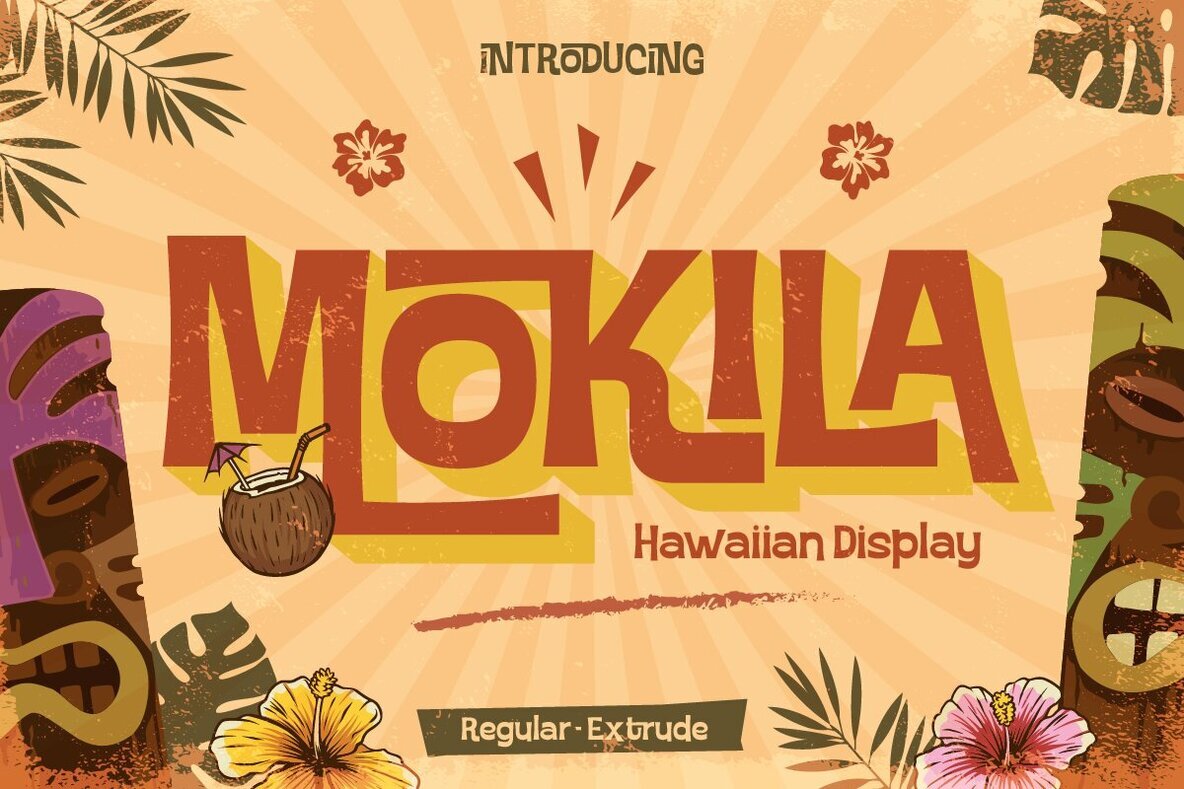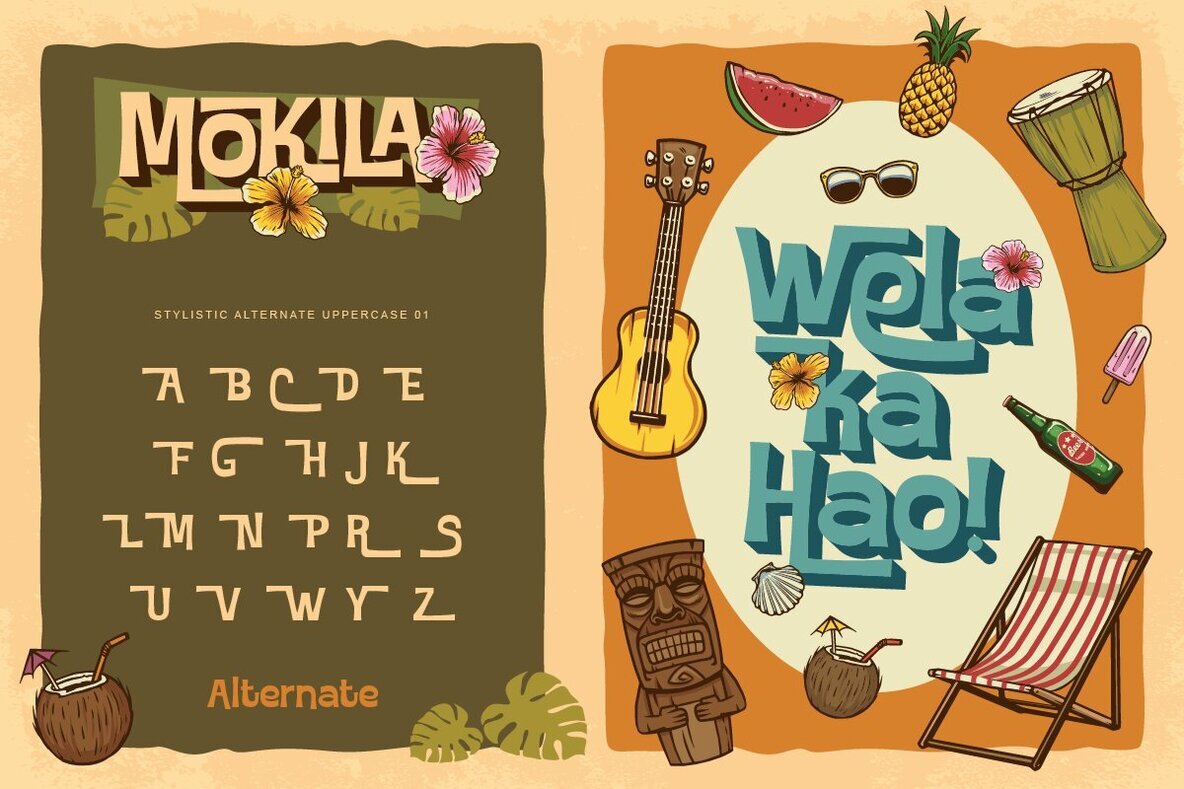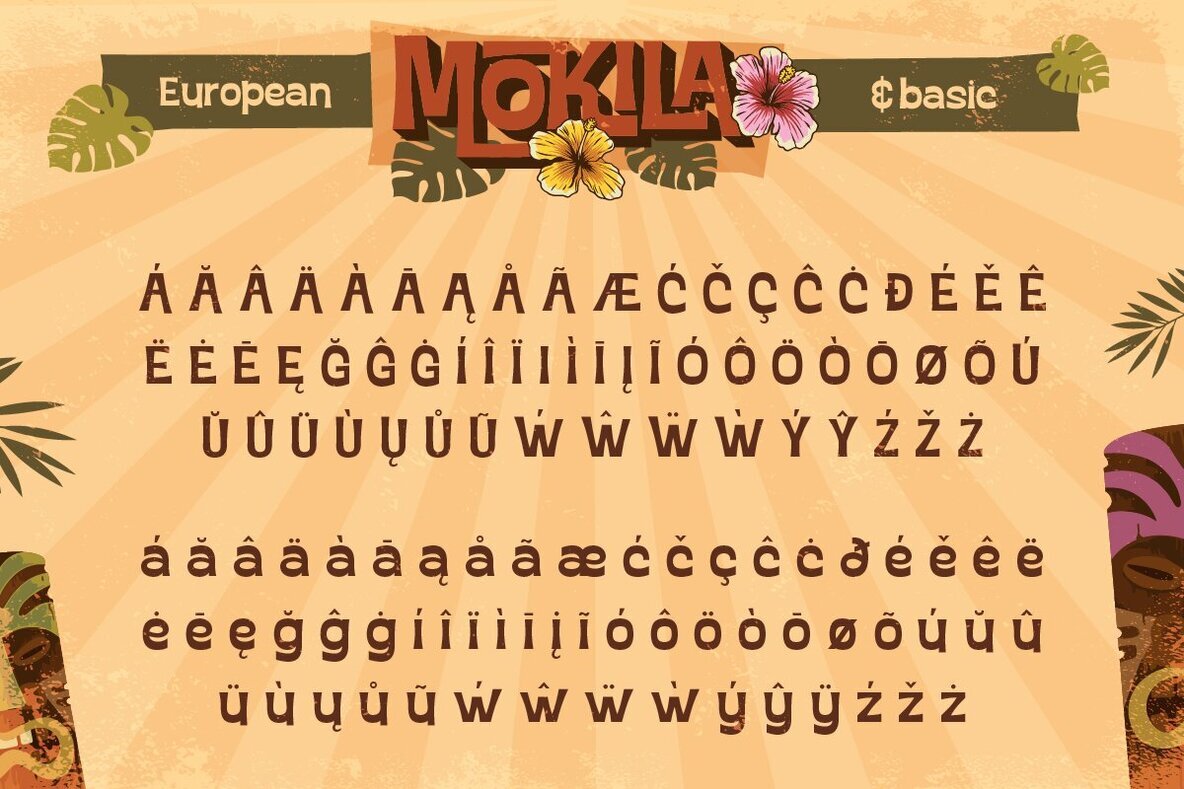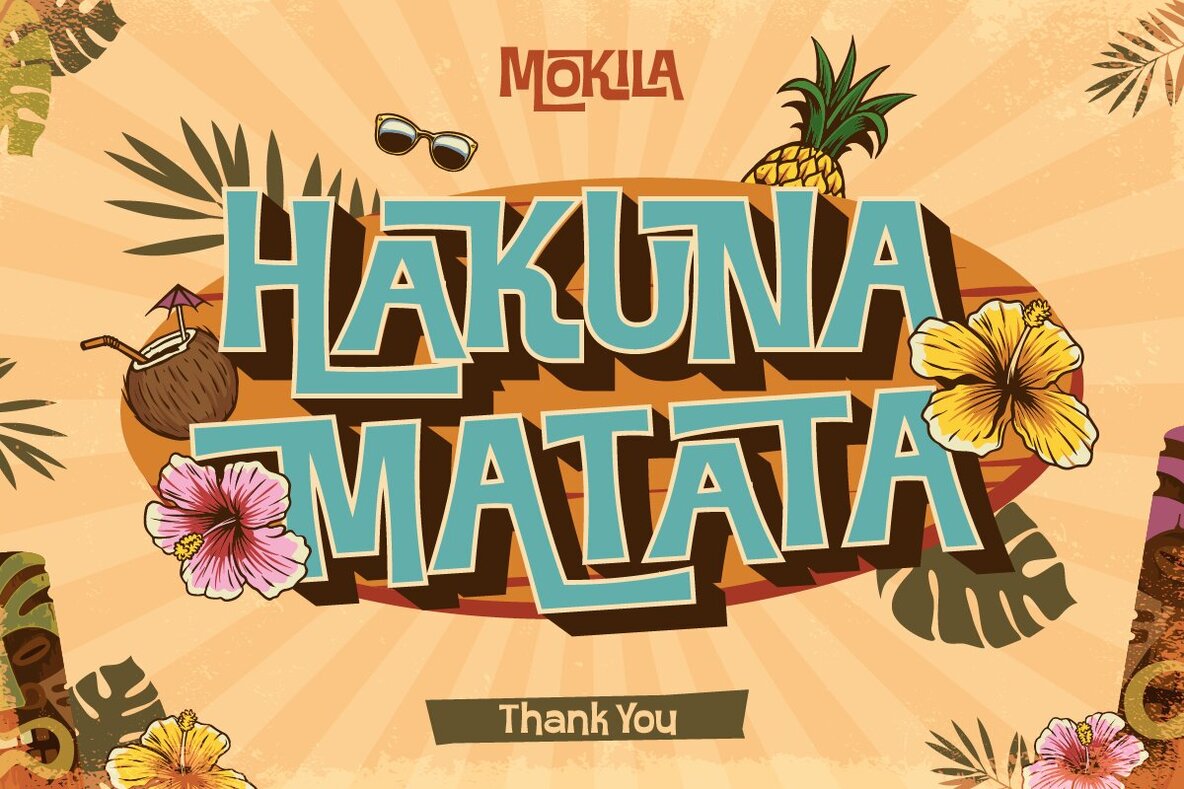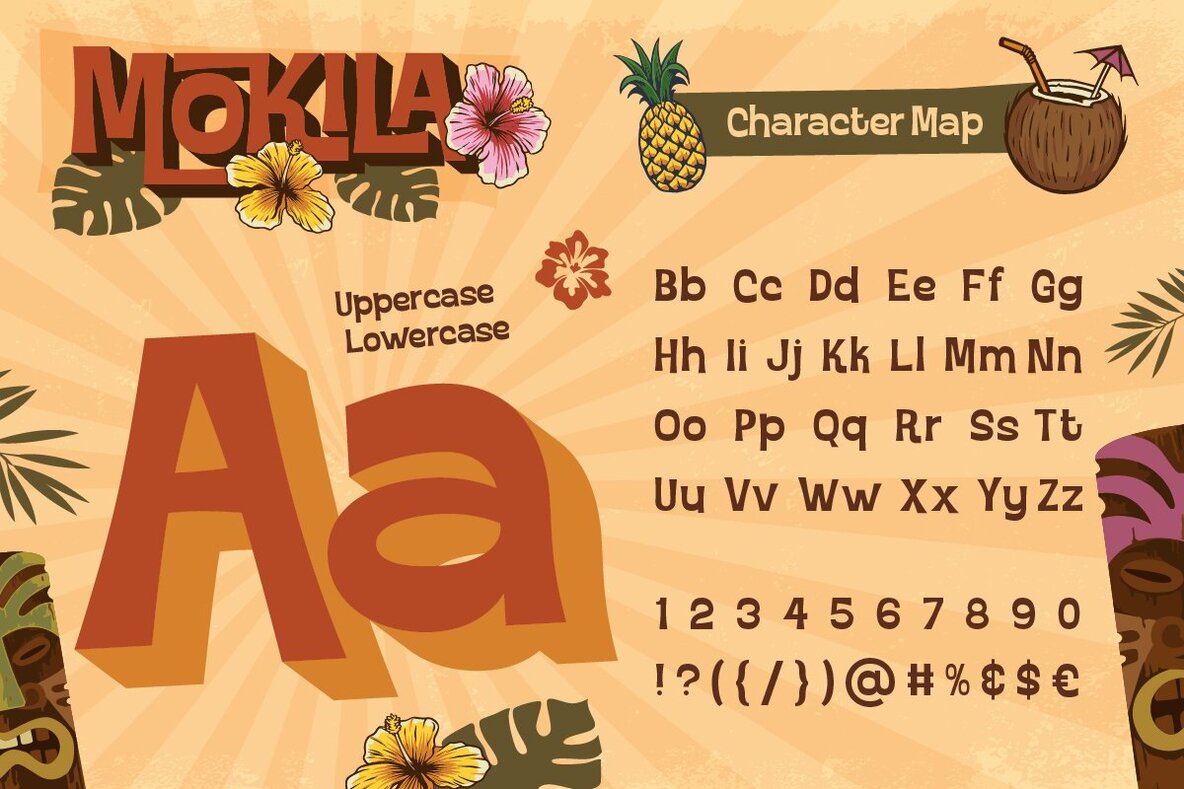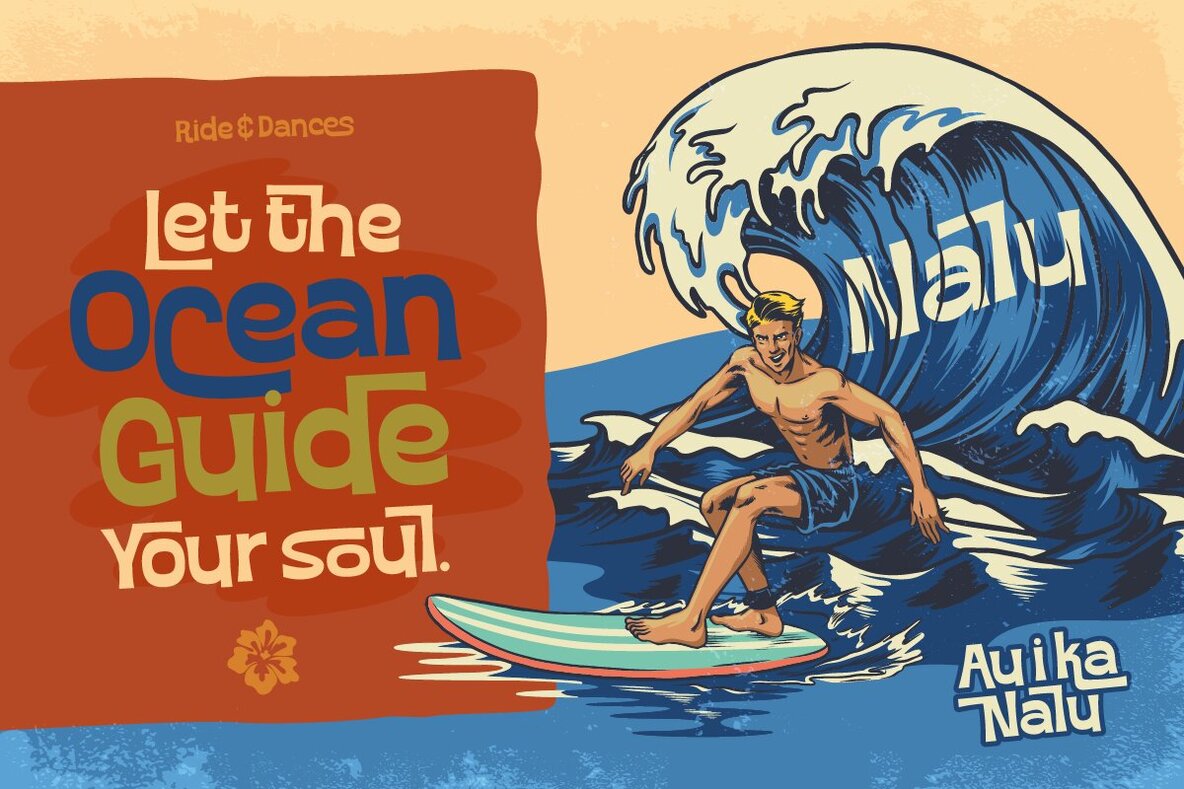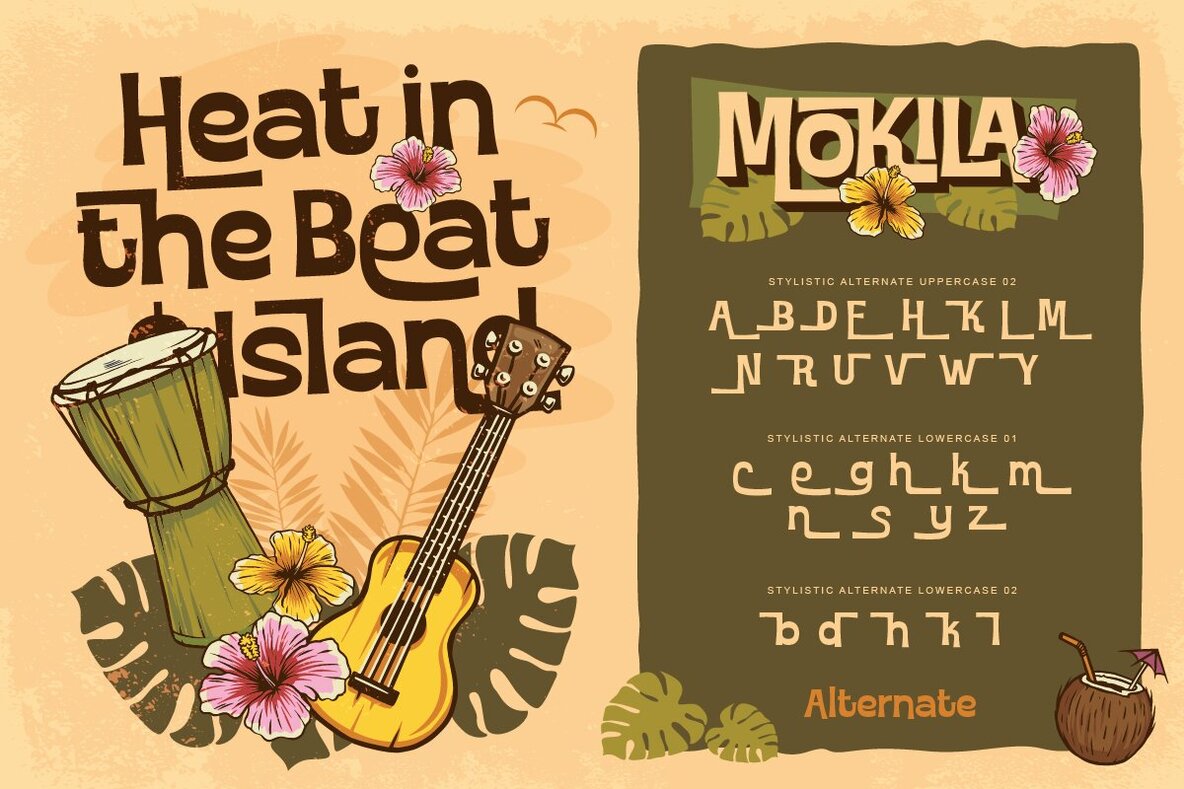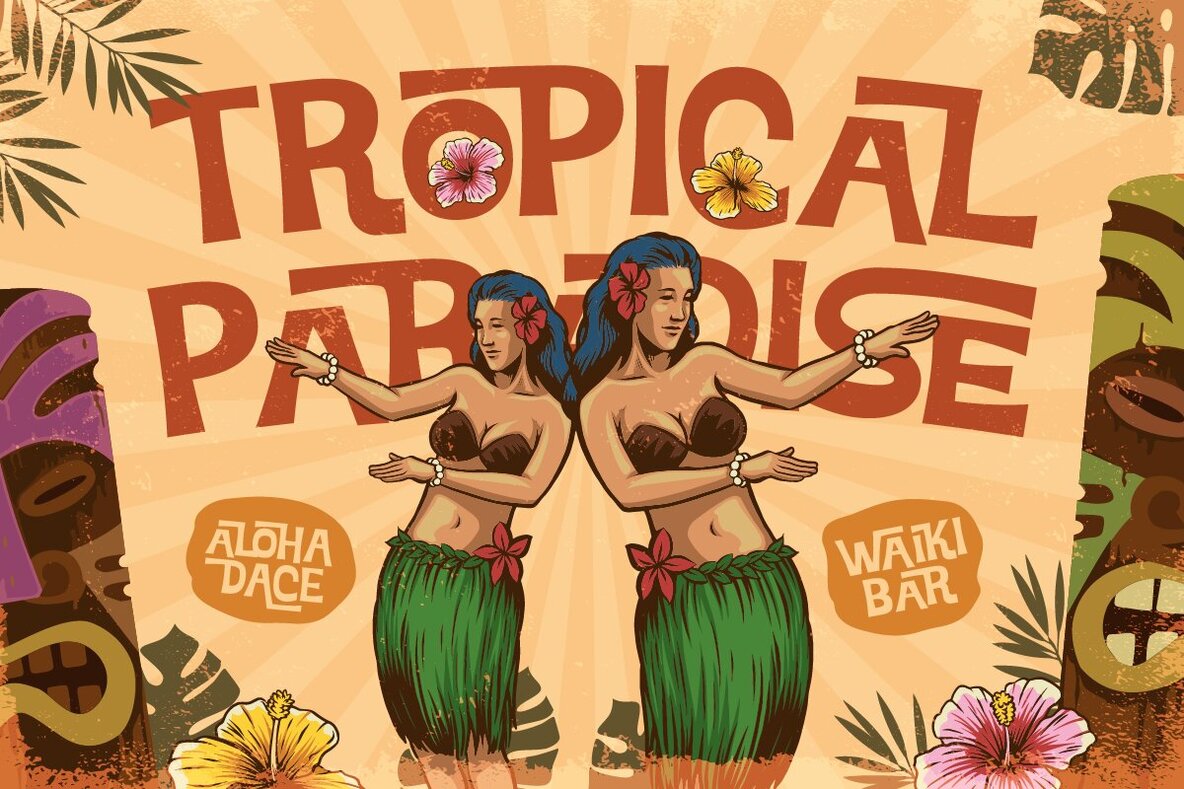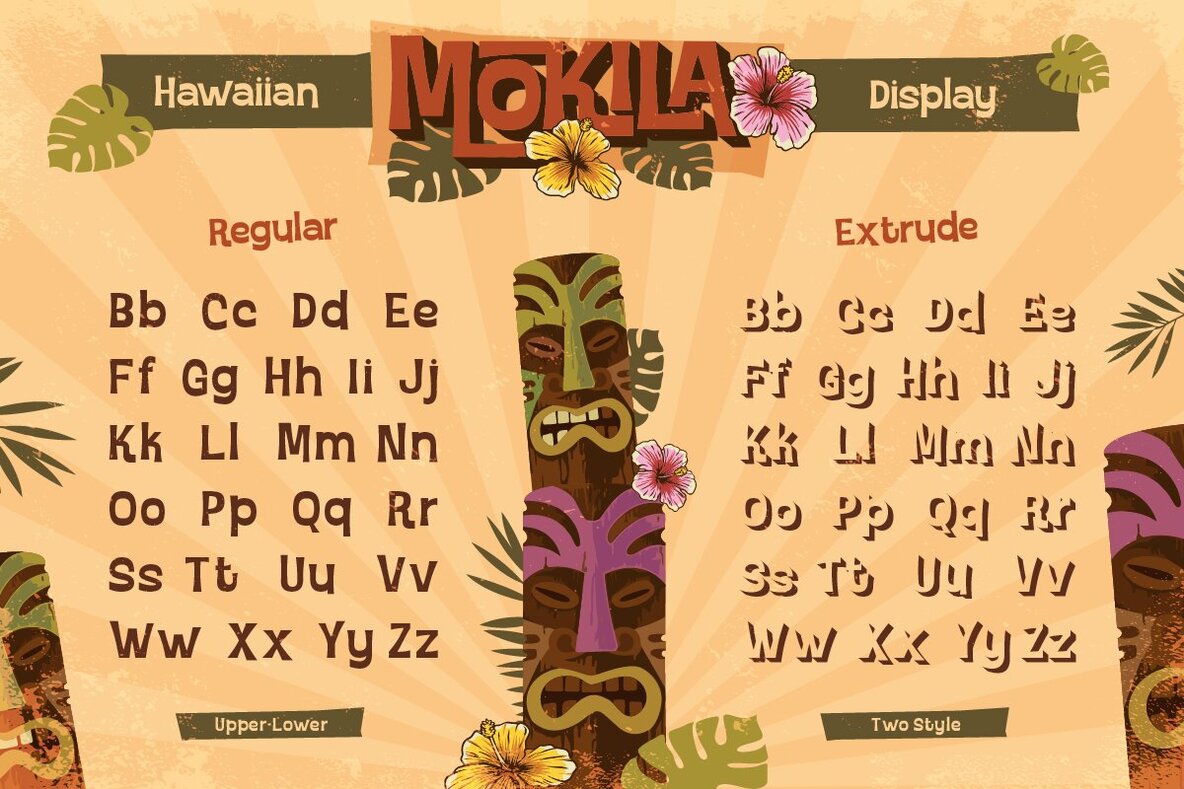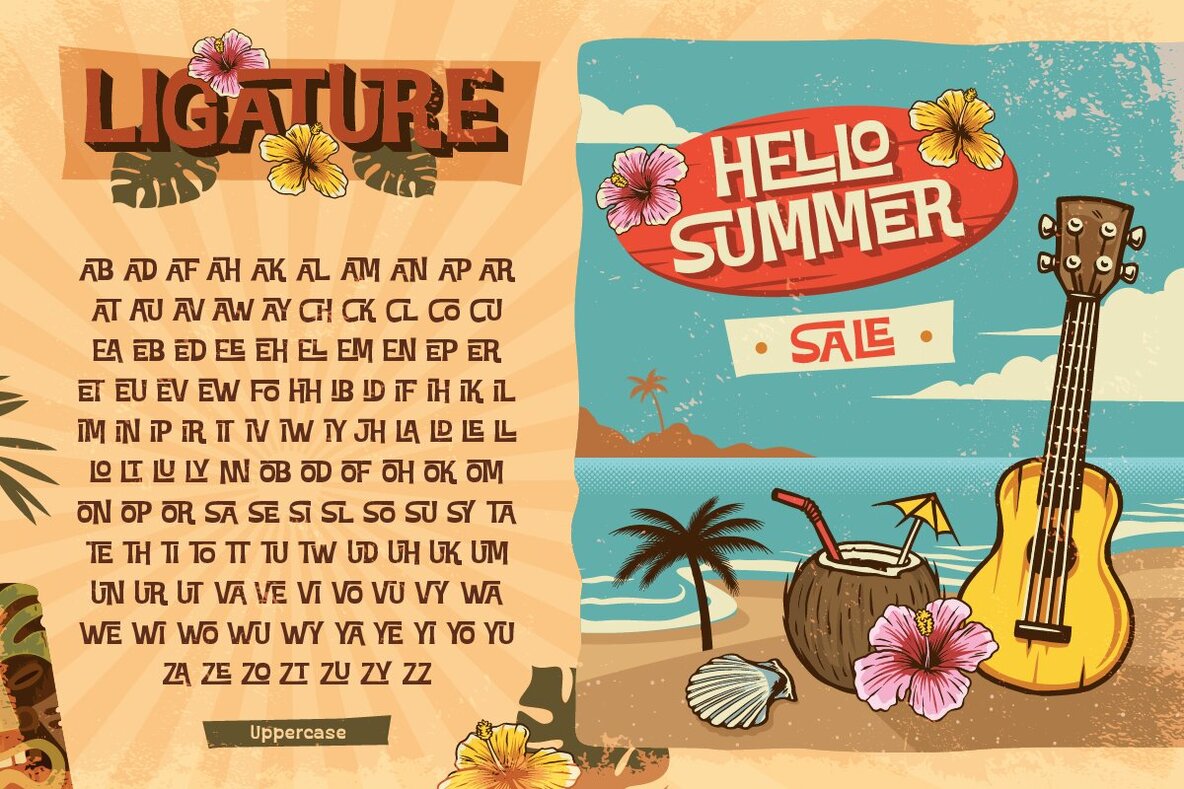
Mokila Font
Mokila Regular
Mokila Extrude
Embrace the spirit of Hawaii with Mokila, a lively display font designed to infuse your creative projects with vibrant, exotic charm. Capturing the essence of island life, Mokila marries boldness with a touch of whimsy. It's the perfect choice for designs that crave a splash of paradise. Mokila features two striking styles: Regular and Extrude. The Regular style offers a solid, classic look, while the Extrude style adds a unique 3D dimension, making text stand out with an adventurous flair. Whether you're crafting party invitations, branding a resort, or designing signage, Mokila's captivating presence subtly evokes island explorations and sunny adventures.Mokila: Vibrant Hawaiian Display Typeface